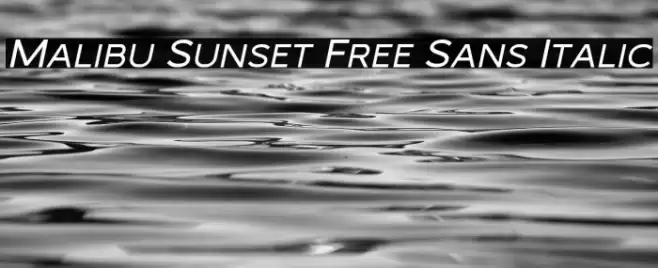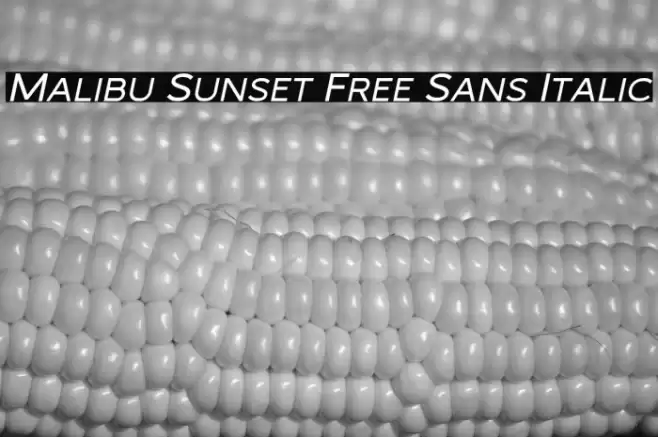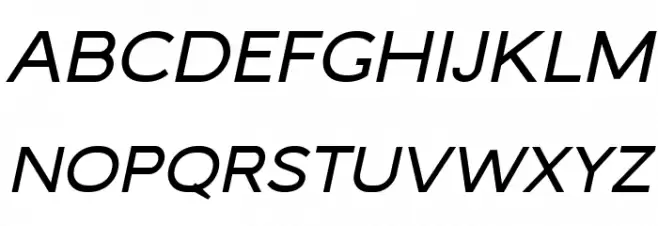
Malibu Sunset Free Sans Italic Font
Malibu Sunset Free Sans Italic Description
This font features a sleek and modern sans-serif design with a distinct italic slant, giving it a dynamic and forward-moving appearance. The characters are clean and streamlined, with uniform stroke widths that contribute to a cohesive and harmonious look. The lack of serifs enhances its contemporary feel, making it suitable for a variety of digital and print applications. The font maintains a consistent baseline, ensuring readability and clarity across different sizes. Its italic nature adds a touch of elegance and sophistication, making it ideal for projects that require a modern yet stylish aesthetic.
A modern sans-serif italic font with a sleek and dynamic appearance from Regular fonts.